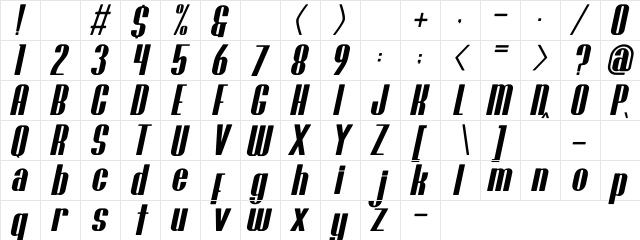
Brasham Rounded Italic Demo Rounded Italic Font Preview
Design Context for Brasham Rounded Italic Demo Typeface
Brasham Rounded Italic Demo softens its letterforms with rounded terminals, giving it an approachable, friendly quality that works well in consumer-facing and digital contexts. The dynamic lean of this cut emphasises speed and emphasis in any layout.
Well-suited to UI design, mobile interfaces, and any brand that wants approachability without sacrificing clarity.
Font Pairing: Pairs well with a rounded or humanist sans for body copy, maintaining the friendly tone without relying on Brasham Rounded Italic Demo to carry extended reading.
Pro Tip: Use Brasham Rounded Italic Demo for UI elements, app interfaces, and anywhere a friendly, approachable tone needs to be maintained without sacrificing clarity.